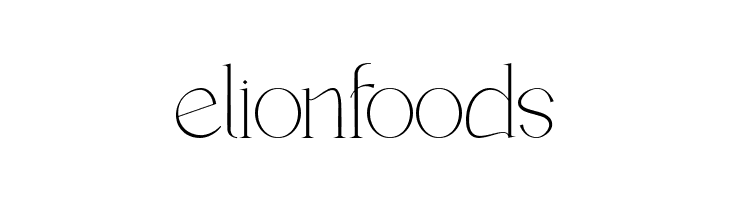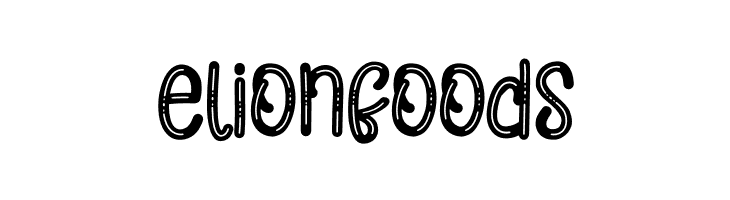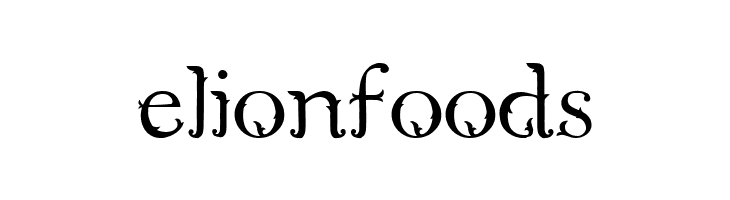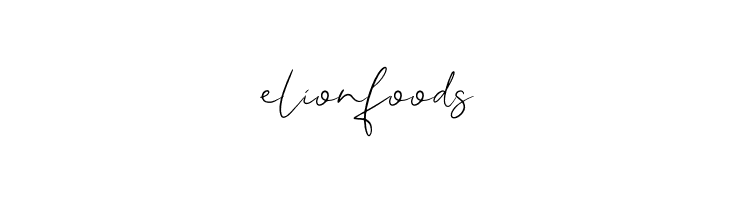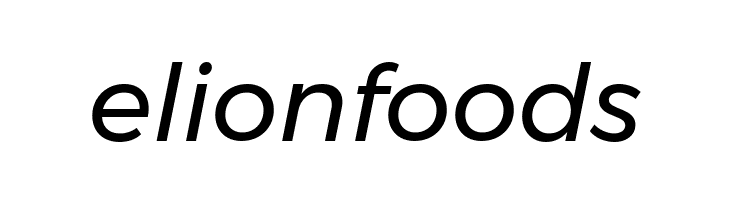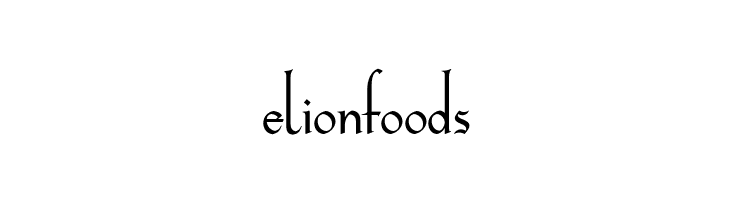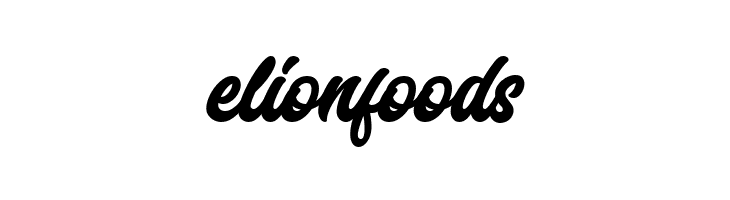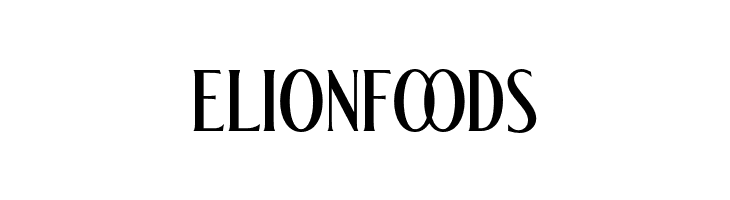
An elegant and refined font with high contrast and elongated strokes.
A playful, striped font with rounded, bold characters and a whimsical style.
An ornate and decorative font with elegant swirls and artistic flair.
A delicate, flowing script font with elegant, thin strokes.
A bold, high-contrast font with strong, dynamic strokes and a commanding presence.
A bold, modern font with dynamic curves and sharp angles.
A modern, italic sans-serif font with clean lines and balanced contrast.
An elegant, medieval-inspired serif font with sharp, angular serifs and decorative elements.
A bold, cursive font with fluid, connected characters and high contrast.
A high-contrast, elegant font with slender, sophisticated characters.